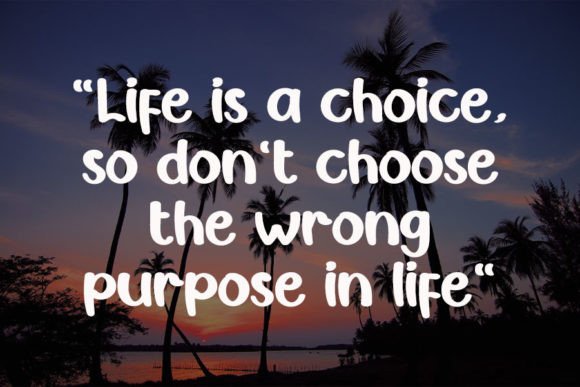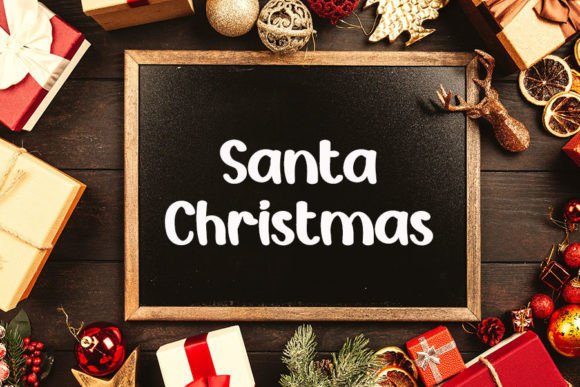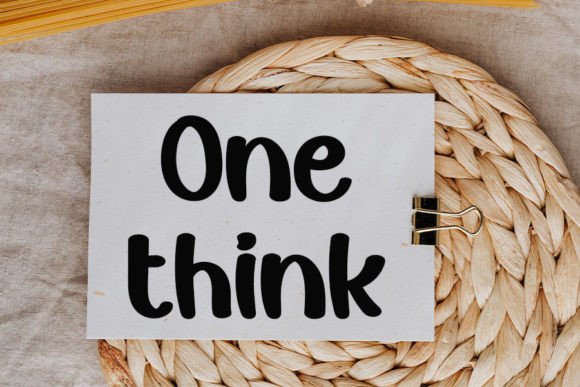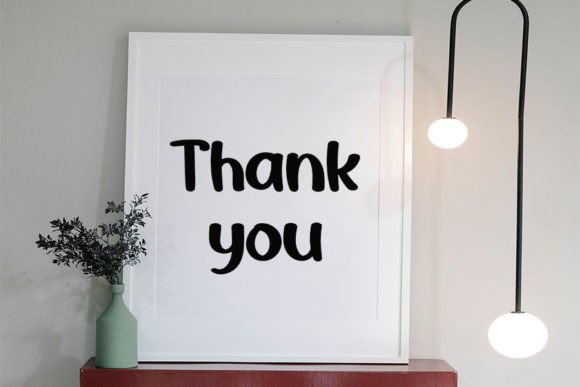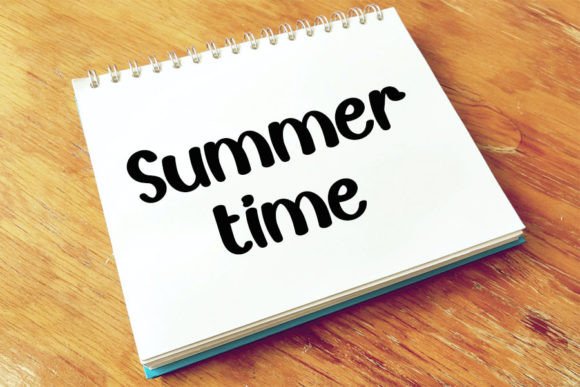
Spring Handmade Font
About Spring Handmade Font
Spring Handmade font is a magical and elegant handwritten typeface designed to bring a fresh, personal touch to your creative projects. Its clean yet quirky style makes it the perfect choice for designers seeking to combine sophistication with a handcrafted charm. Whether you are creating logos, branding materials, social media posts, or DIY craft projects, Spring Handmade font adds an inviting and lively personality that helps your designs stand out.
Elegant Handcrafted Design
Spring Handmade font features carefully crafted characters with smooth, flowing strokes that mimic natural handwriting. Its design strikes a balance between elegance and playfulness, making it suitable for a wide range of creative needs. The subtle quirks in its letterforms add unique character, ensuring your projects carry an authentic handcrafted feel.
Versatile for Branding and Logos
This font shines in branding and logo design thanks to its versatility and distinctive style. Spring Handmade font fits perfectly with fashion brands, boutique businesses, handmade crafts, and lifestyle products. Its elegant yet approachable look helps you build memorable brand identities that resonate emotionally with your audience.
Perfect for Social Media and DIY Projects
In the world of social media, engagement and are key. Spring Handmadefont helps you create compelling posts, story highlights, and advertisements with its charming handwritten vibe. It’s also an excellent choice for crafting invitations, greeting cards, product and other DIY projects that require a personal touch. This font adds warmth and character that connect well with your audience.
Clean Readability with Personality
Despite its artistic style, Spring Handmadefont maintains excellent readability across sizes and formats. Whether used for headlines or smaller text, it delivers clear communication without style. This makes it reliable for both digital and print applications, ensuring your message always shines through.